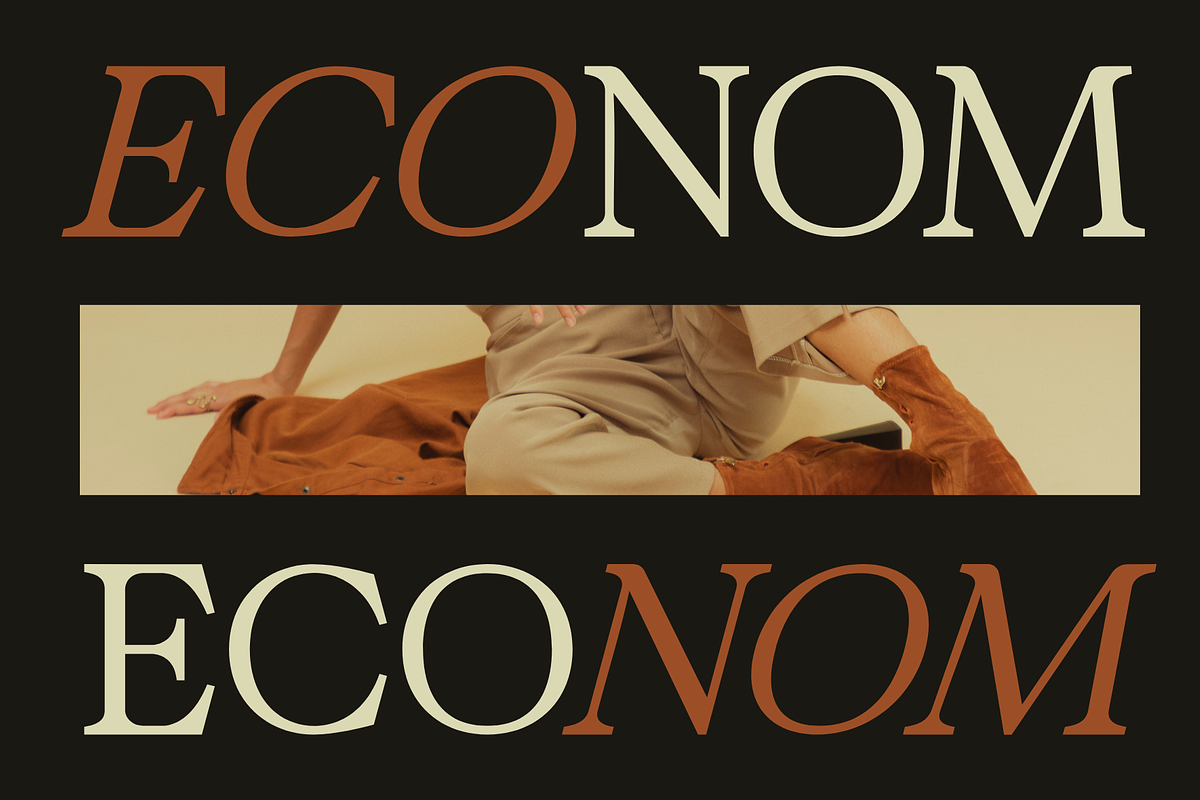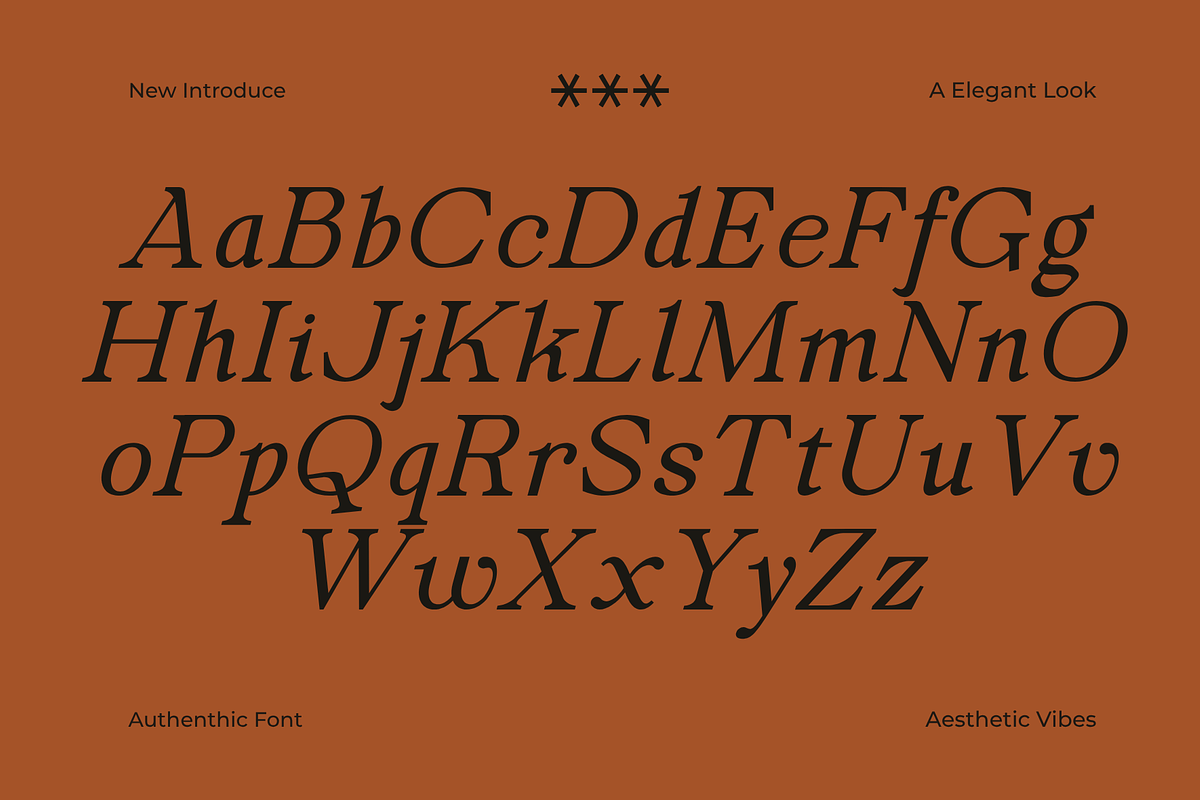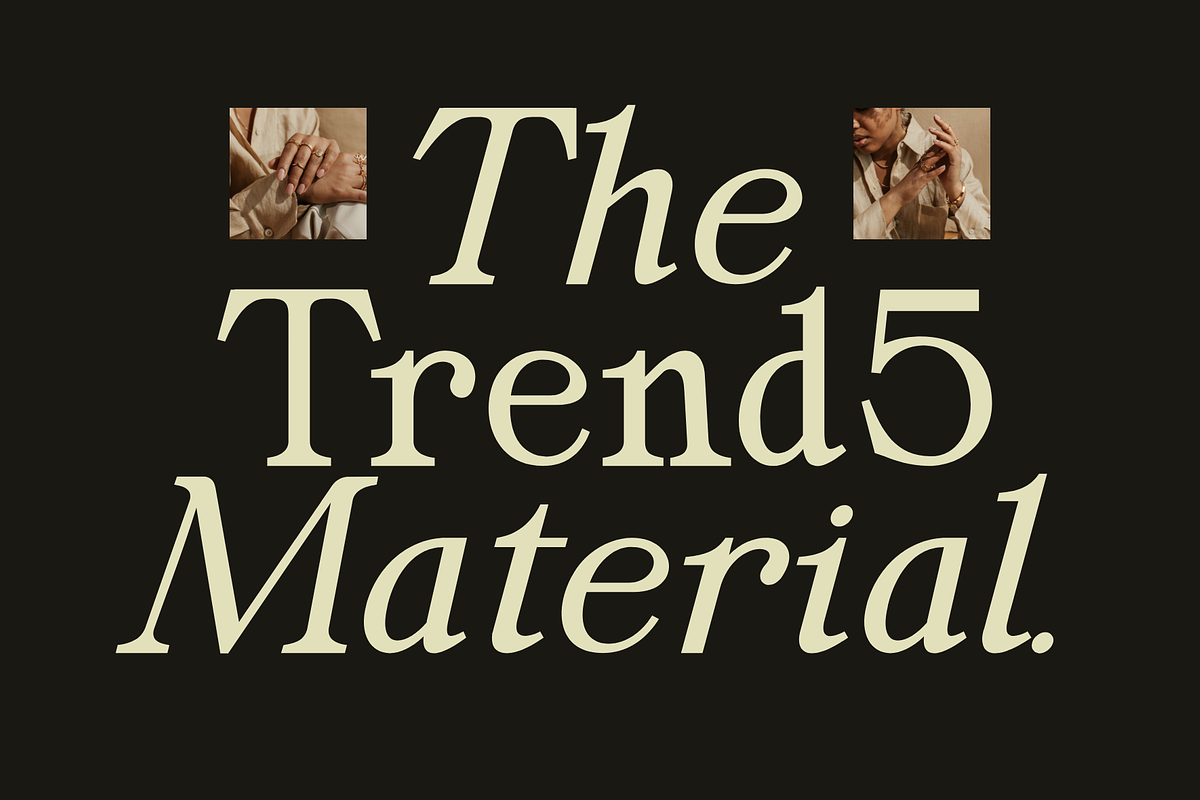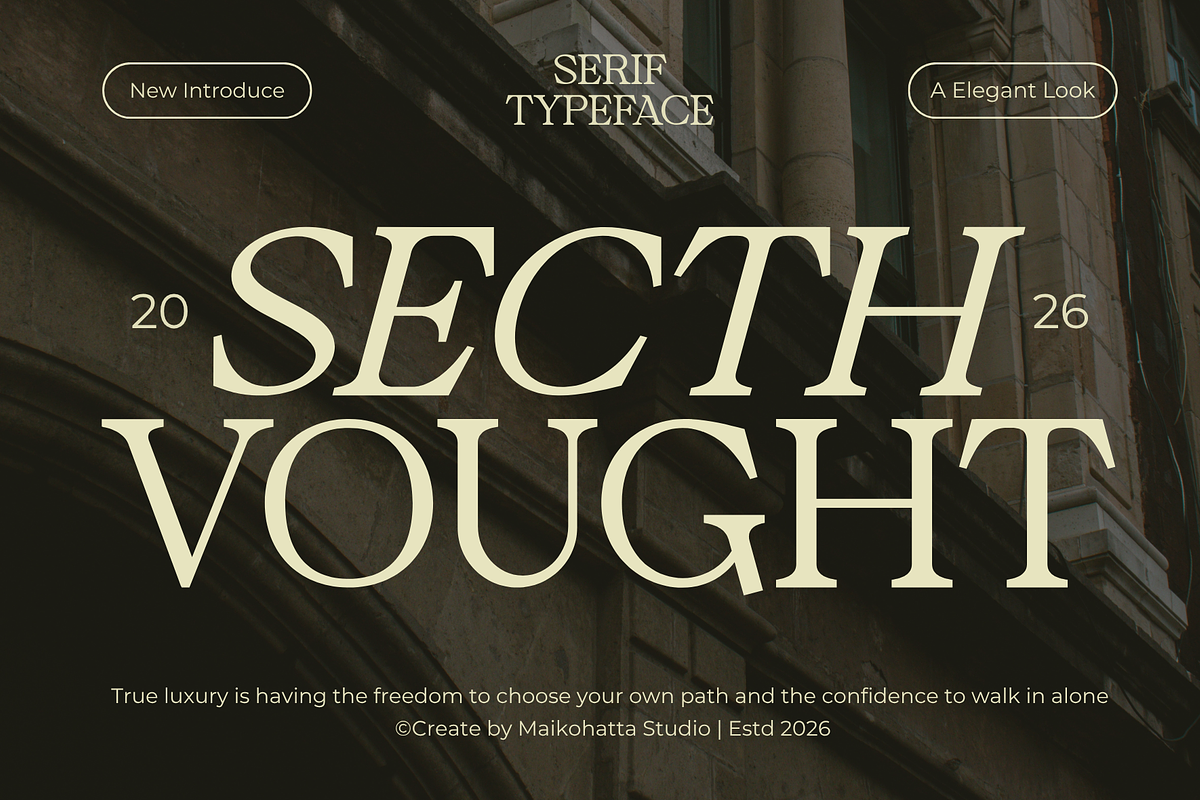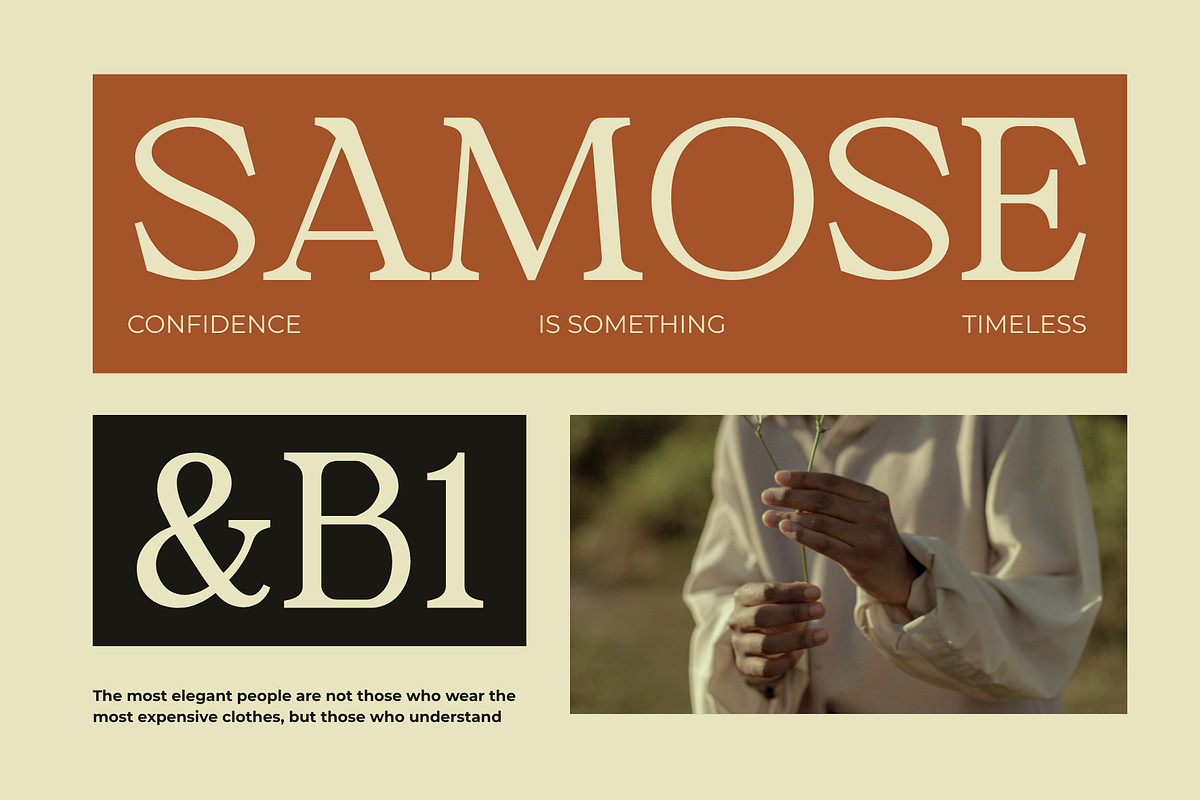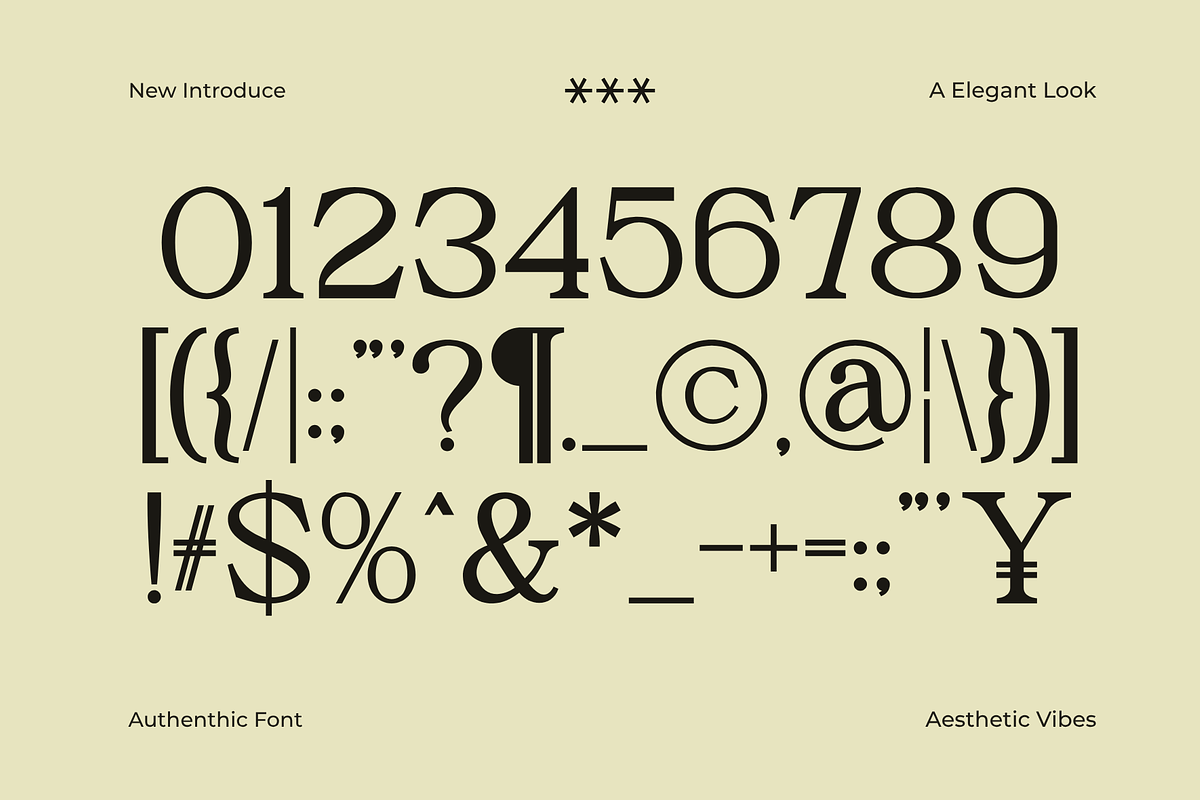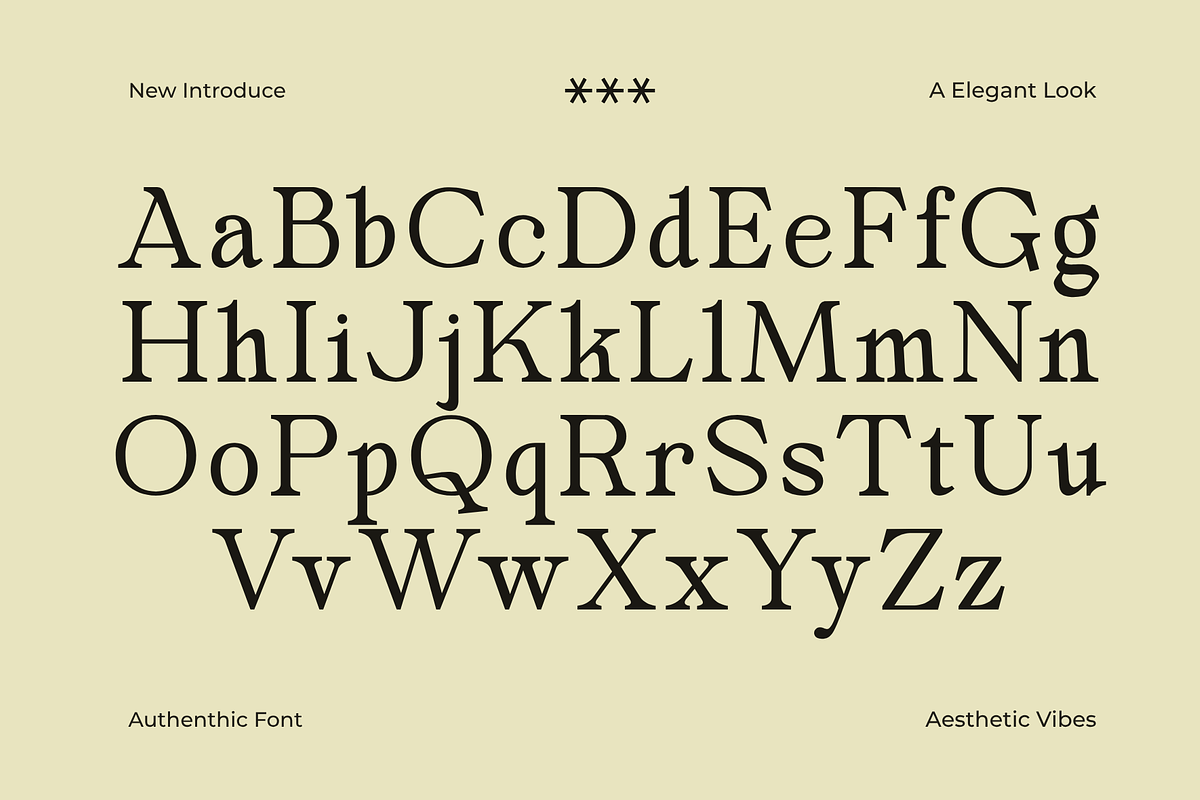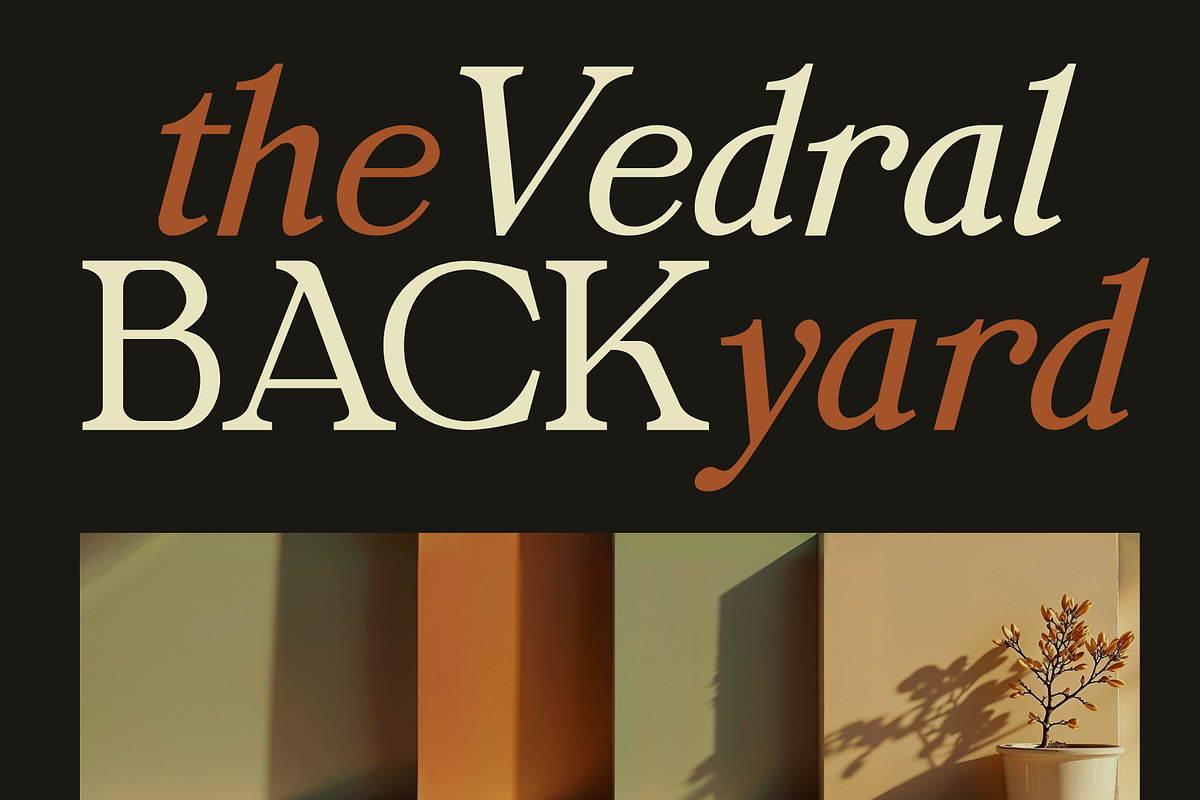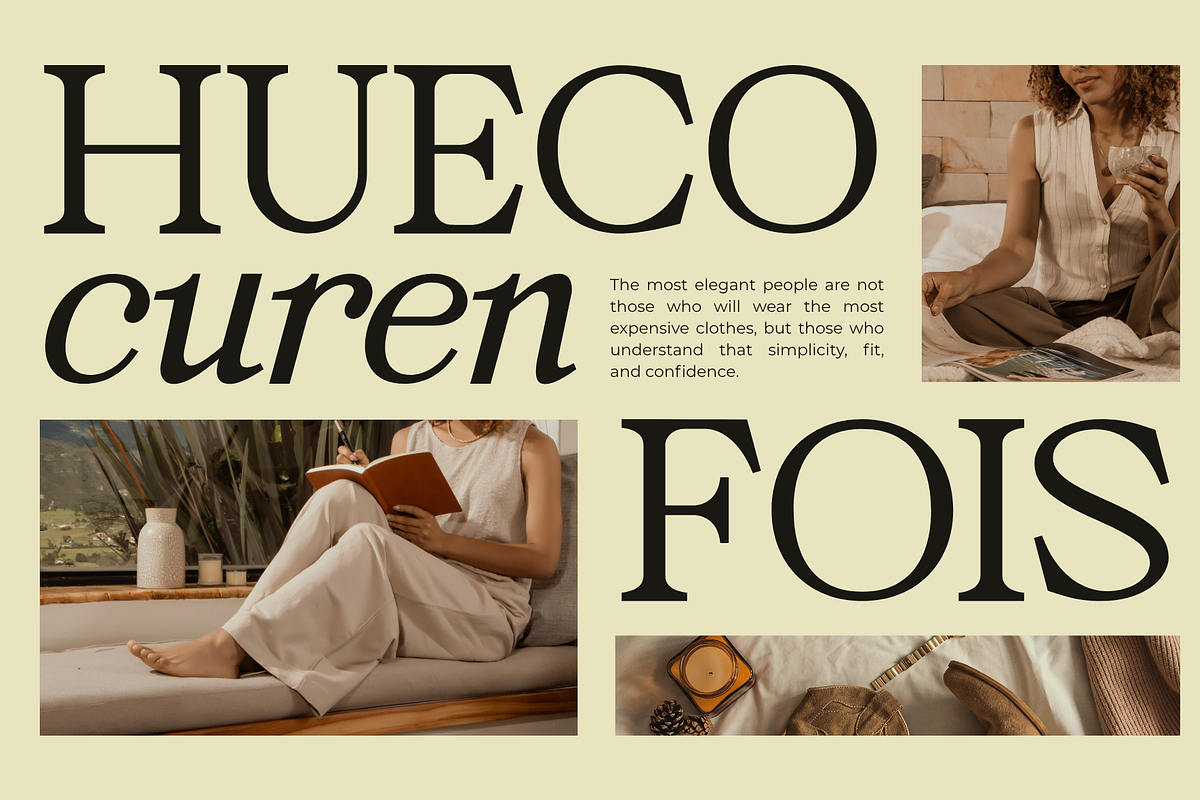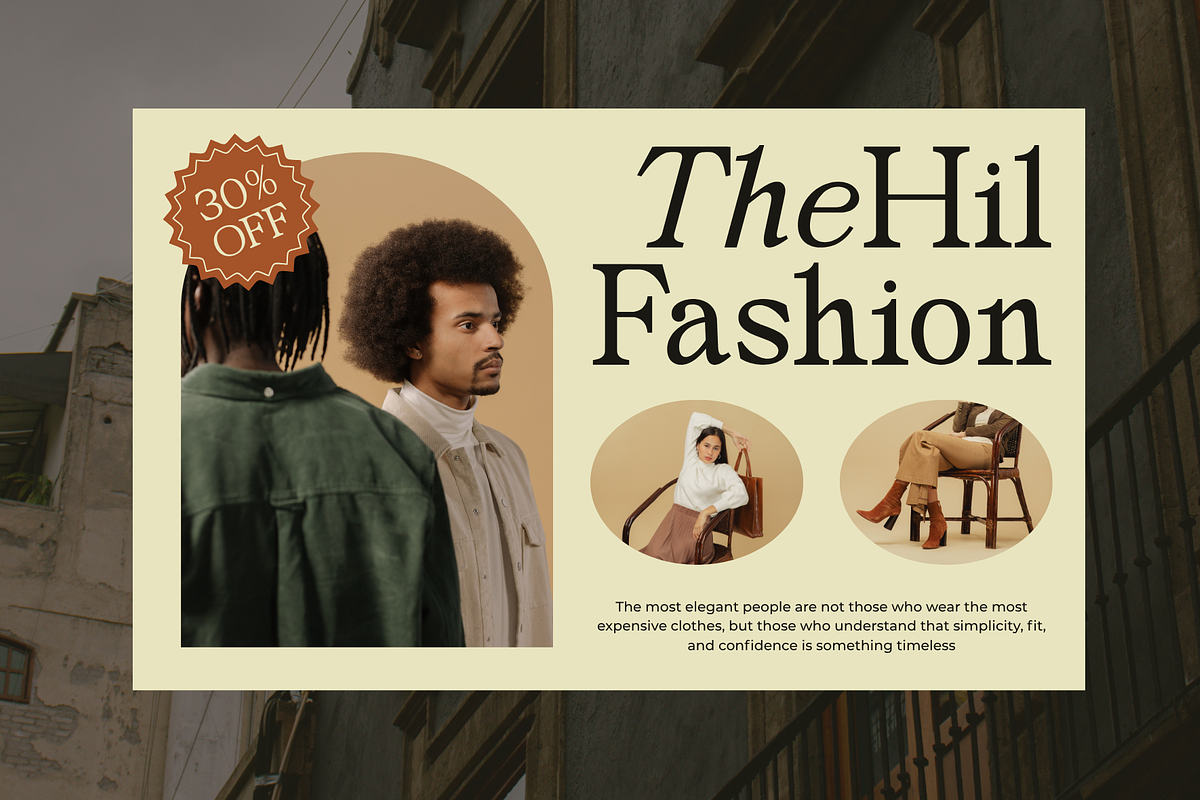
Secth Vought–Luxury Editorial Serif
Secth Vought is a sophisticated luxury serif typeface crafted to bring elegance, refinement, and timeless beauty to your creative projects. Inspired by high-end fashion magazines, branding, and classic European typography, this font combines graceful curves with sharp details to create a truly distinctive visual presence.
Designed for designers who seek exclusivity and professionalism, Secth Vought delivers stunning results across editorial layouts, luxury logos, fashion campaigns, packaging, wedding stationery, beauty brands, and premium marketing materials. Its balanced proportions and stylish letterforms make every headline look prestigious and memorable.
Whether you're creating a luxury fashion identity, a modern editorial design, or an elegant brand presentation, Secth Vought provides the perfect blend of classic sophistication and contemporary appeal.
* Uppercase
* Lowercase
* Multilingual
* Ligature